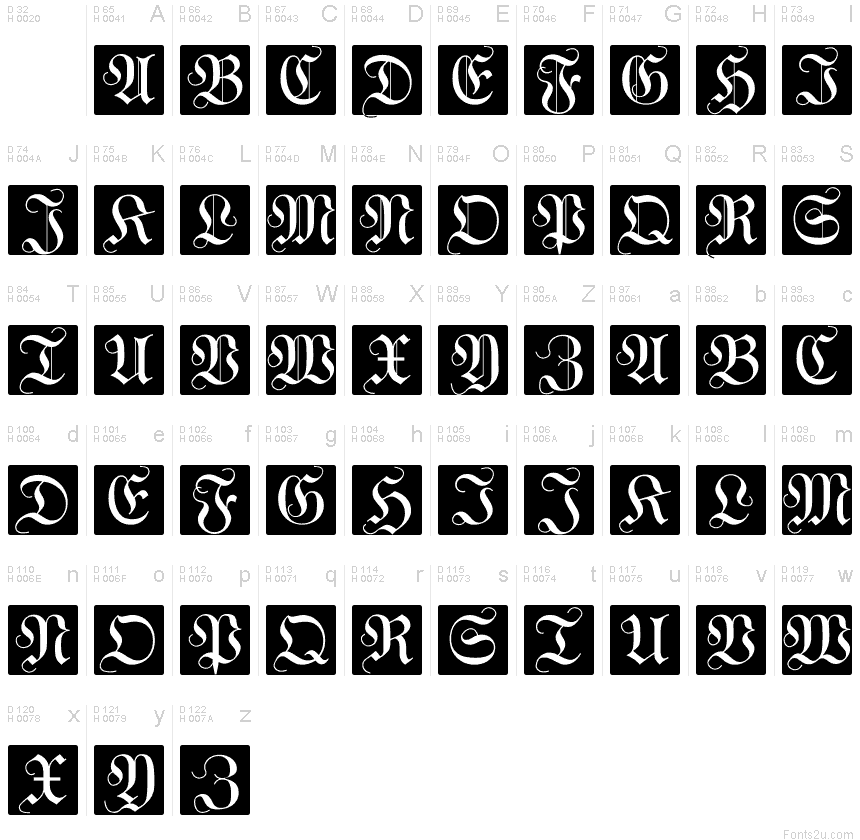
WittewittMajuscles-FlourishBricks
Wittewitt Majuscles Flourish Bricks by M. Klein is a free blackletter initials font rooted in the elaborate forms of medieval calligraphy. The capitals combine broad, angular bodies with very thin hairlines, sharply cut points, and long curling flourishes. Repeated loops and sweeping top strokes give the set the carefully drawn richness of hand-lettered display type.
Those ribbonlike extensions can continue the line of ornamental borders or heraldic illustration, making the font apt for book covers, invitations, and historical event posters. Fantasy game branding also benefits from its unmistakably medieval, courtly style.